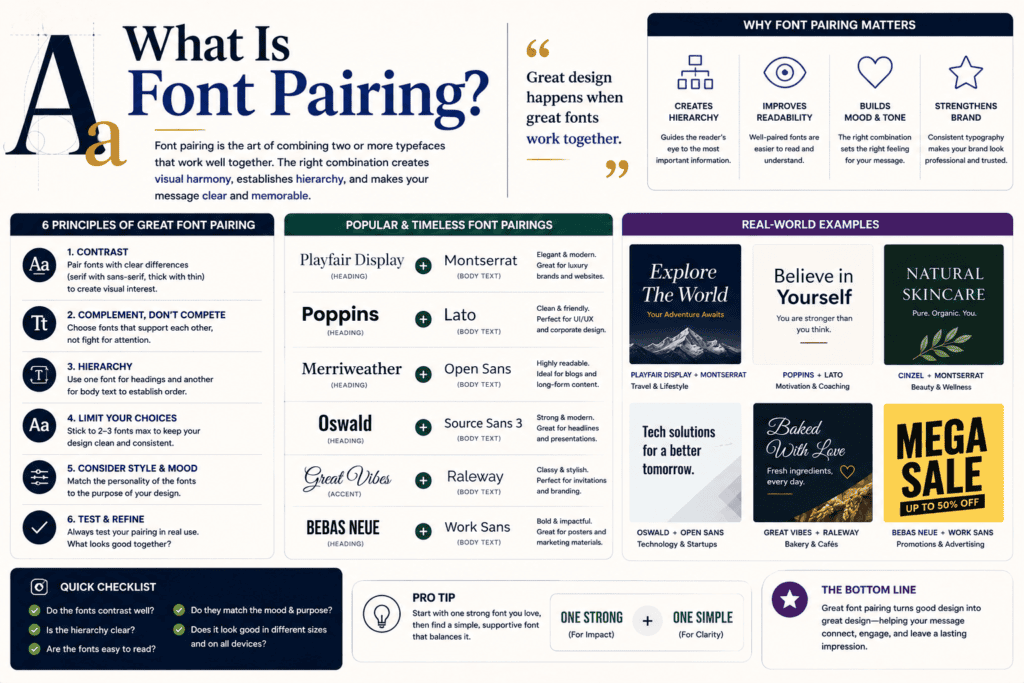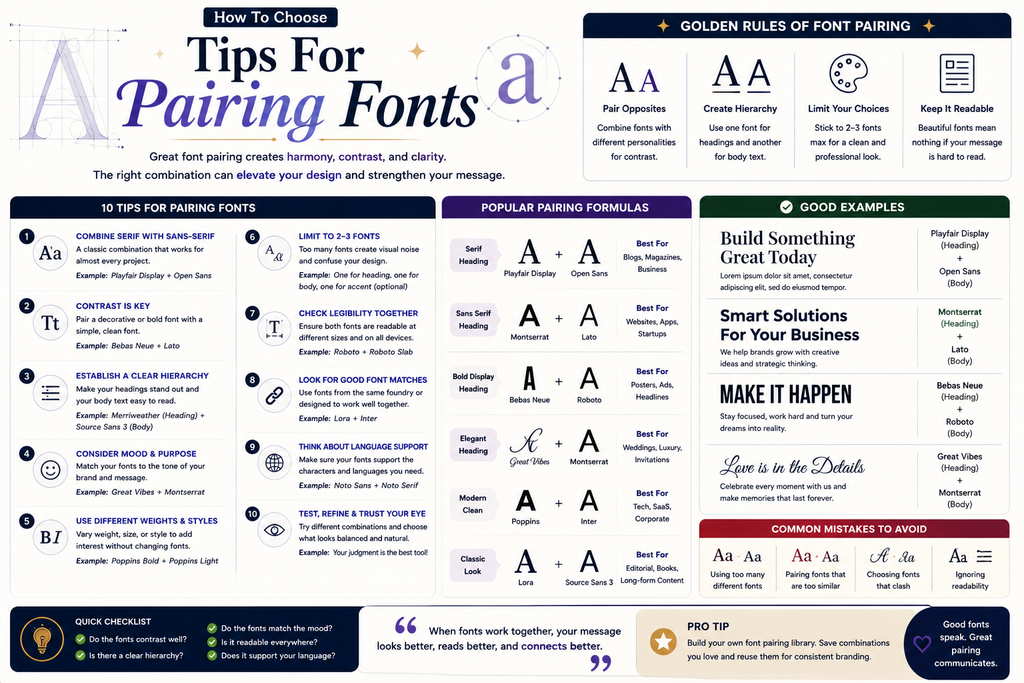
Strong font pairing is less about decoration than directing attention. In client projects, I first test readability, tone, and content hierarchy, because these choices quietly shape visitor experience, trust, and perceived professionalism across every website.
A reliable system combines contrast, balance, and hierarchy: a distinctive headline, restrained body copy, and occasional accent font. From experience, thoughtfully chosen complementary fonts help a reader skim and navigate without noticing the design itself.
Why It Matters
Pairing matters because typography directs attention before language is processed. Clear hierarchy separates headings, body text, and calls to action, strengthening readability while helping each message reach people with less mental effort during every visit.
A well-judged pairing also protects brand identity: it signals tone and personality consistently across print, web, and mobile interfaces. In client work, this restraint often produces more professional, memorable communication than decorative excess alone achieves.
How To Choose / Tips For Pairing Fonts
Begin by assigning each typeface a defined role, then judge font size, visual weight, and legibility on smaller screens. In my projects, this practical test exposes any contrast issue faster than chasing fashionable pairing suggestions.
Choose serif fonts and sans serif fonts for complementary functions, not novelty; reserve script fonts for design highlights. Compare logo text, website body copy, and navigation menus together, ensuring clean contrast without sacrificing aesthetic appeal.
Common Mistakes To Avoid
From client audits, I have learned that a decorative headline font paired with a minimal body font can still fail when creators ignore context. Excessive novelty may overwhelm, confuse visitors, and turn clashing into friction.
The overlooked error is choosing typefaces that appear too similar. I recommend a contrast-based approach: vary font weights, inspect copy across screen sizes, and test choices for legibility before visual habits become a design oversight.
Tools For Font Pairing
Start with predefined font pairings from trusted sources, then inspect each option rather than accepting recommendations blindly. In client work, I compare typographic scales, font size, and visual hierarchy before saving combinations for practical use.
Browser testers help me preview typography choices across screen widths, while specimen generators expose spacing problems and weak visual flow. Testing actual headings, paragraphs, and buttons reveals mobile usability issues before designers approve a combination.
Examples Of Font Pairings
In practice, Playfair Display beside DM Sans creates visual appeal without sacrificing scannability: the serif gives headlines a classic voice, while the sans serif keeps longer content blocks comfortable to read across screens and devices.
For a softer editorial pairing, Cormorant Garamond with Lato and Lora regular-weight italics can guide the eye. I use this combination sparingly for quotes, subheadings, and lowercase body text, preserving content hierarchy across readable pages.
How Font Pairing Supports SEO And Content
From audits, I’ve found typography supports SEO indirectly: headlines help visitors scan content, improve comprehension, and strengthen user engagement. Search engines do not rank font pairs themselves; they reward accessible pages people can navigate confidently.
For practical results, pair a bold headline font with clean readable body copy, then preserve consistency across pages. This reduces friction, clarifies topic structure, supports mobile reading, and keeps articles engaging without sacrificing performance.
Key Takeaways
Strong font pairing begins with visual clarity, not novelty. In practice, I limit to two or three fonts, avoid lack of contrast, and keep pairings consistent, keeping hierarchy recognizable across web, mobile interfaces, and content.
My results come from trial and error: evaluate, tweak, repeat, then judge whether each combination feels intentional, remains easy to read, and can guide reader’s eye. Combinations support user engagement, strengthen SEO, and reduce bounce.
The Bottom Line
The bottom line? Effective pairing succeeds when hierarchy feels clear at a glance, not merely fashionable. In projects, I assess headings, paragraphs, labels, and mobile screens together, because a coherent rhythm matters more than novelty.
Contrary to advice, combinations need not stand apart dramatically; they need purpose. I favor measured contrast, then tune proportion until every choice supports the intended aesthetic, protects readability, and leaves enough room for controlled creativity.
The Rule Of Three / 3-Font Formula
The Rule Of Three approach uses a three-font formula where designers combine primary, secondary, and accent roles with purpose rather than random selection. A balanced system creates hierarchy through font choices while maintaining visual harmony.
Maintaining font pairing consistency helps a website feel organized because brand style requires visual harmony. I often review font choice decisions to ensure pages support readers, navigation, and recognizable identity without limiting creative expression online.
Does Font Pairing Affect Mobile Usability?
Mobile typography choices influence UX when font combinations remain balanced across screens. I find responsive layouts work better with clean styles that improve reader’s attention and keep legible text during scrolling on smaller mobile devices.